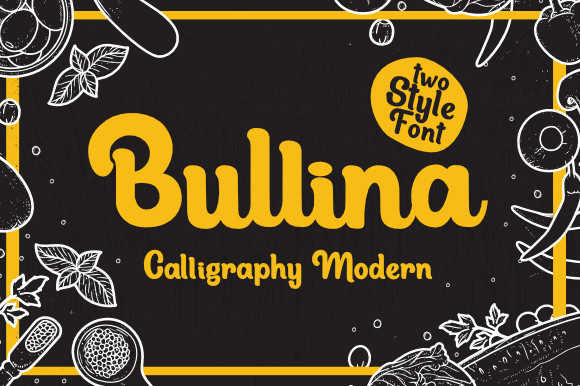
Journey into the realm of creativity with Bullina Script, a font family that embodies magic and elegance. Designed by the skilled artisans at EKNOJI, Bullina captivates hearts with its thick, enchanting letters, meticulously crafted to add an aura of sophistication to your creations.
Step into a world of endless possibilities with Bullina Script, an essential tool for those seeking the perfect aesthetic. Whether you're a social media enthusiast seeking fonts for Instagram or a passionate crafter searching for calligraphy scripts to elevate your DIY projects, Bullina Script has the power to transform your creative ideas into masterpieces that captivate the senses.
Immerse yourself in a symphony of creativity as you explore the versatility of Bullina Script. Its ability to blend seamlessly with various design styles makes it the perfect companion for logos, branding, wedding invitations, posters, social media graphics, apparel, and more. Unleash your imagination and watch as Bullina Script breathes life into your projects.
With Bullina Script at your fingertips, you'll be the envy of your creative circle. Its distinctive charm and enchanting aura will make your designs stand out, captivating audiences with their beauty and elegance. Let Bullina Script be your guide as you embark on an artistic journey like no other.